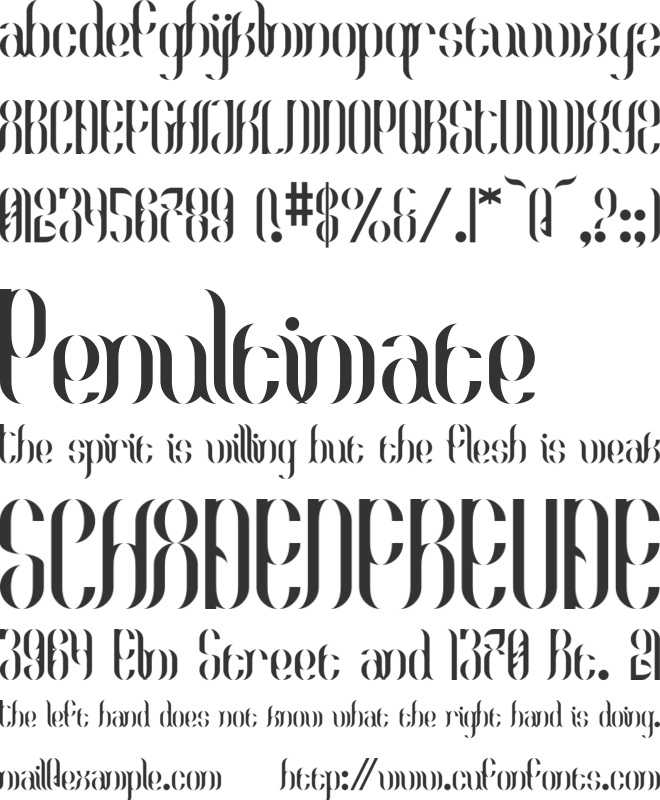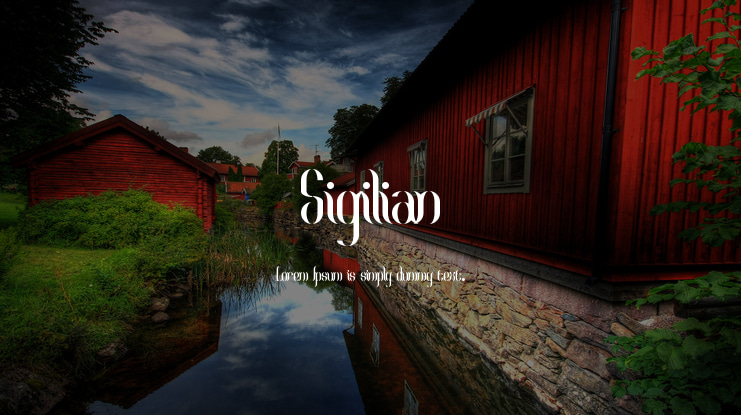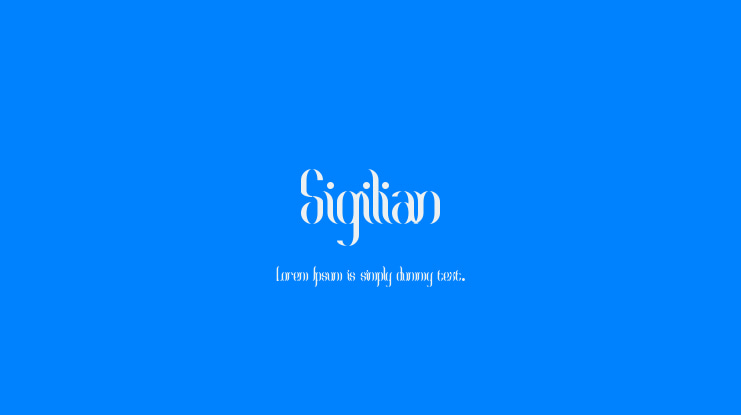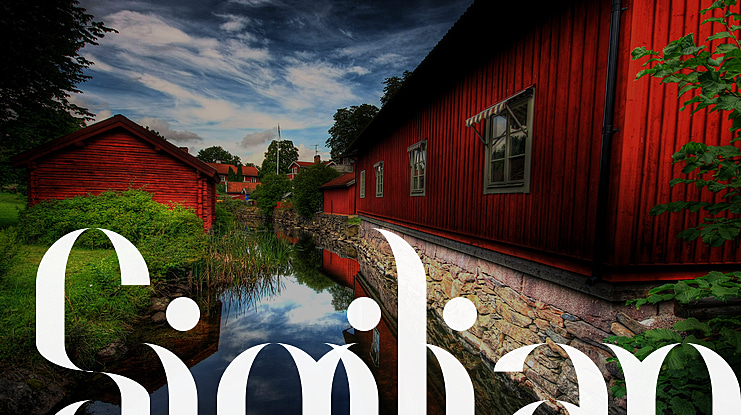
Sigilian Font
A design formerly called "Midnight Oil".
I went against a few of my own conventions for this one. The close spacing might look a bit strange at times, but it eliminates the need for kerning while also creating a unique look. The overlapping spurs make me think of thorny plants!